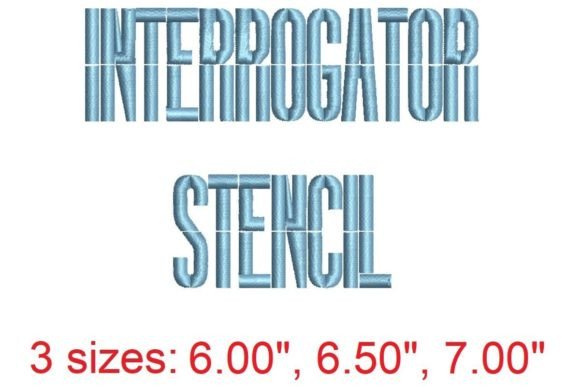
Interrogator Stencil Embroidery Font
As an experienced embroidery seller, I'm always on the lookout for high-quality machine embroidery designs that can elevate my handmade products and Etsy listings. The Interrogator Stencil Embroidery Font caught my attention for its clean, modern aesthetic and versatility across a wide range of items. Whether you're running a craft business or managing a small shop, this design offers both creative and commercial value.
What Is Interrogator Stencil Embroidery Font?
The Interrogator Stencil Embroidery Font is a digital embroidery file designed for use in machine embroidery projects. Its name suggests a bold, structured look, and based on the description, it appears to be ideal for adding a touch of sophistication to your custom apparel, home decor, and personalized gifts. With its contemporary style, it's perfect for sellers looking to create a professional and polished appearance in their product offerings.
This font isn't just about looks—it’s practical. It’s likely suitable for a variety of fabric types and can be adapted to different project sizes, making it a flexible choice for any embroidery business. As with any Creative Fabrica embroidery design, it’s important to check the licensing terms before using it for commercial purposes.
Best Suited For: Professional And Modern Products
Interrogator Stencil Embroidery Font seems best suited for products that require a sleek, minimalist look. It has the potential to add a premium feel to items like tote bags, sweatshirts, and aprons. Its clean lines make it ideal for custom apparel and embroidered patches, where clarity and precision matter.
It also works well for baby embroidery, especially when paired with soft, pastel thread colors. For kitchen towel embroidery, the font’s simplicity ensures it stands out without overwhelming the design. When used on pillow covers or caps, it adds a modern edge that appeals to a broad audience.
This design feels more elegant than playful, and less rustic than classic. It’s a great option for sellers who want to create a professional image while still maintaining a fresh, contemporary vibe.
Supporting Product Ideas
Interrogator Stencil Embroidery Font can support a wide range of product ideas. For Etsy sellers, it’s an excellent choice for creating unique, customizable items that stand out in a crowded marketplace. Whether you’re designing personalized gifts, boutique merchandise, or small batch apparel, this font can help you deliver a consistent and appealing visual identity.
It’s also useful for craft fair items and seasonal collections. The font’s clean design makes it easy to photograph and showcase in social media previews, which is essential for online shoppers who rely on visuals to make purchasing decisions. Additionally, it can be used in printable mockups to help customers visualize how the design will look on their chosen item.
For commercial embroidery products, this font offers a reliable and scalable solution. Its structure allows for clear stitch density and manageable hoop size, making it suitable for both beginner and advanced embroiderers.
Buyer-Focused Value
One of the key benefits of Interrogator Stencil Embroidery Font is how it enhances the appeal of finished products. It helps create a more giftable and memorable item, which is crucial for handmade product sellers. A well-designed font can make a personalized gift feel more special and thoughtfully crafted.
It also contributes to a more professional appearance, which is essential for building trust with online shoppers. When used on tote bag design or sweatshirt embroidery, it ensures that your products look polished and high quality. This can lead to better reviews, repeat customers, and increased sales.
Additionally, the font’s simplicity makes it easier to photograph and present in product listings. Clear, readable text is a must for listing-thumbnail size, and this design should perform well in that regard. It also pairs well with a variety of thread colors, allowing for customization based on customer preferences.
Practical Seller Notes
Before adding Interrogator Stencil Embroidery Font to your product collection, there are a few practical steps to consider. First, test the design by creating a sample stitch-out. This will help you understand how it looks on real fabric and whether it meets your quality standards.
Photograph the sample on different materials to see how it performs. Check the stitch density to ensure it’s not too tight or loose, and confirm the hoop size required for your embroidery machine. Using the right stabilizer is also important to prevent puckering or distortion.